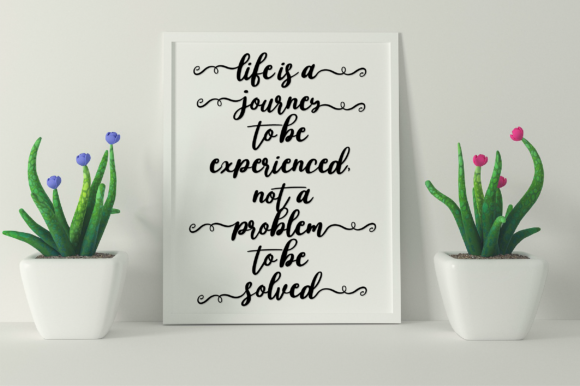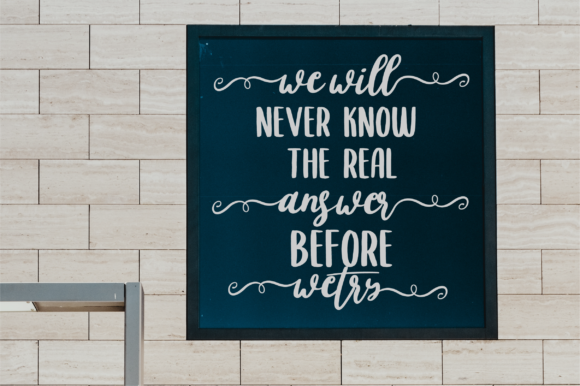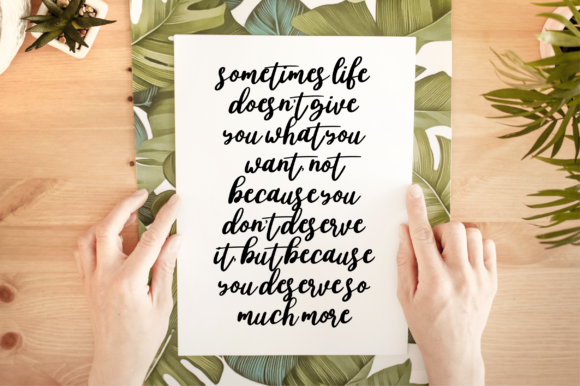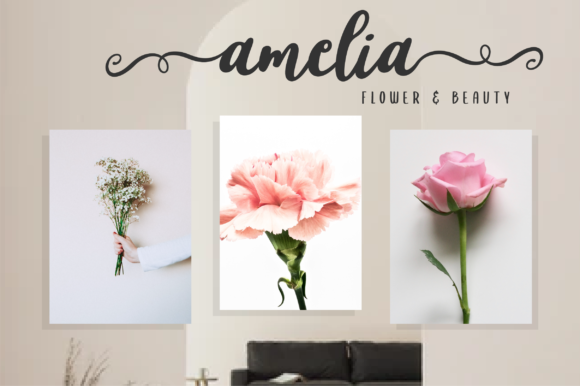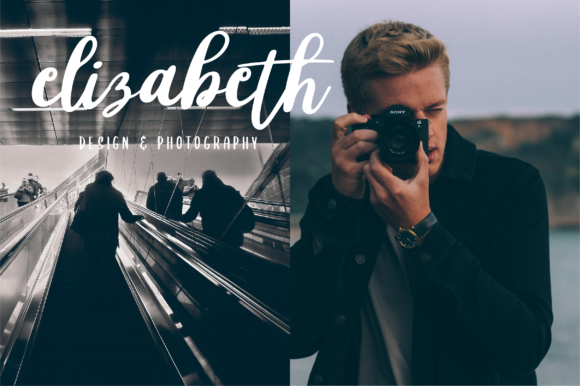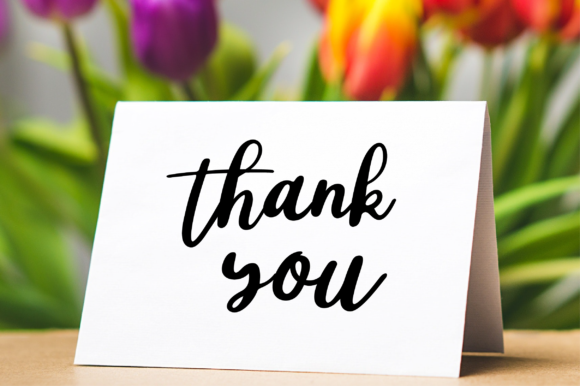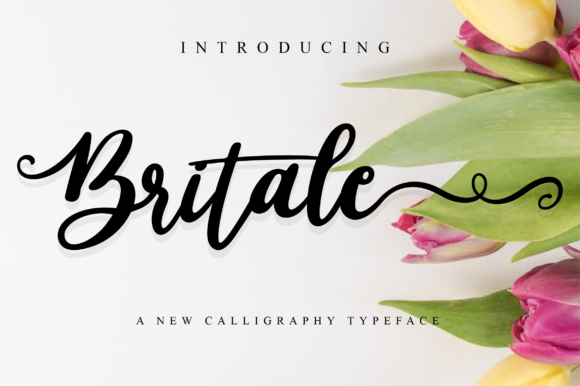
Introducing Britale Script Font: The Sweet and Lovely Choice for Your Designs
Are you looking for a font that can add a touch of romance and elegance to your designs? Look no further than Britale Script Font. This beautiful script font is designed with a romantic approach, making it perfect for a wide range of design projects. In this article, we’ll take a closer look at the features and benefits of Britale Script Font and explore how it can help you create stunning designs that stand out from the crowd.
What is Britale Script Font?
Britale Script Font is a sweet and lovely script font that is designed to add a touch of romance and sophistication to your designs. With its elegant and flowing lines, this font is perfect for creating beautiful and eye-catching designs that capture the heart of your audience. Whether you’re working on a branding project, creating a wedding invitation, or designing a social media post, Britale Script Font is the perfect choice.
Key Features of Britale Script Font
So, what makes Britale Script Font so special? Here are some of its key features:
• Romantic Design: Britale Script Font is designed with a romantic approach, making it perfect for designs that require a touch of elegance and sophistication.
• Elegant Lines: The font features elegant and flowing lines that give it a beautiful and eye-catching appearance.
• Versatile: Britale Script Font is versatile and can be used for a wide range of design projects, from branding and advertising to wedding invitations and social media posts.
• Easy to Read: Despite its elegant design, Britale Script Font is easy to read, making it perfect for body text and headlines.
Benefits of Using Britale Script Font
So, why should you choose Britale Script Font for your designs? Here are some of the benefits of using this beautiful script font:
• Adds Elegance and Sophistication: Britale Script Font adds a touch of elegance and sophistication to your designs, making them stand out from the crowd.
• Perfect for Romantic Designs: The font’s romantic design makes it perfect for designs that require a touch of love and elegance, such as wedding invitations and Valentine’s Day cards.
• Increases Readability: Britale Script Font is easy to read, making it perfect for body text and headlines.
• Versatile: The font is versatile and can be used for a wide range of design projects, making it a great addition to your font library.
How to Use Britale Script Font in Your Designs
Using Britale Script Font in your designs is easy. Here are some tips to get you started:
• Pair it with Other Fonts: Pair Britale Script Font with other fonts to create a unique and eye-catching design.
• Use it for Headlines and Titles: Use Britale Script Font for headlines and titles to add a touch of elegance and sophistication to your designs.
In conclusion, Britale Script Font is a beautiful and elegant script font that is perfect for designers and crafters who want to add a touch of romance and sophistication to their designs. With its elegant lines, versatile design, and easy readability, this font is perfect for a wide range of design projects. Whether you’re working on a branding project, creating a wedding invitation, or designing a social media post, Britale Script Font is the perfect choice. So why wait? Download Britale Script Font today and start creating stunning designs that stand out from the crowd!